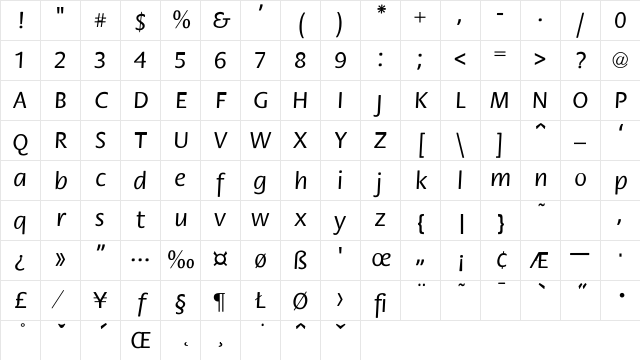
Complete Flora-Normal Regular glyph index. Displaying only characters natively supported by Flora-Normal Regular font.
Flora-Normal is a composed and adaptable typeface that performs quietly and consistently across a wide range of design contexts.